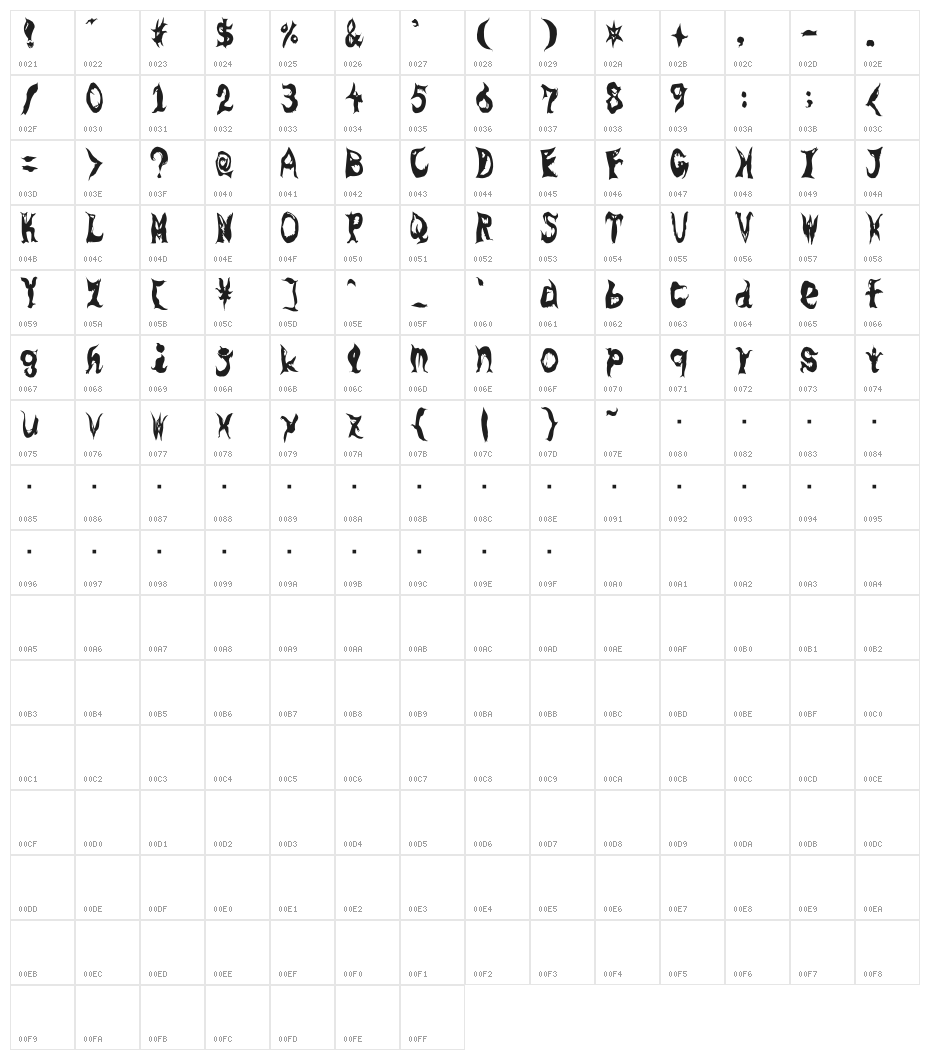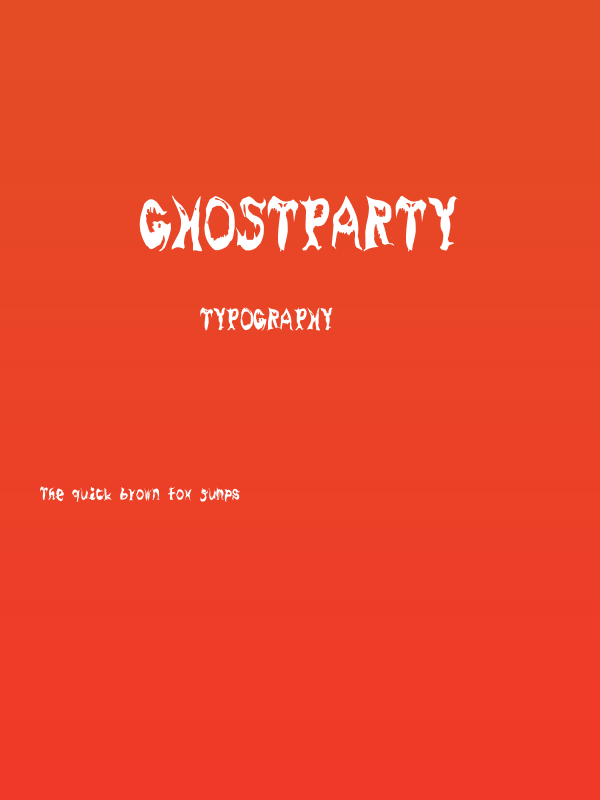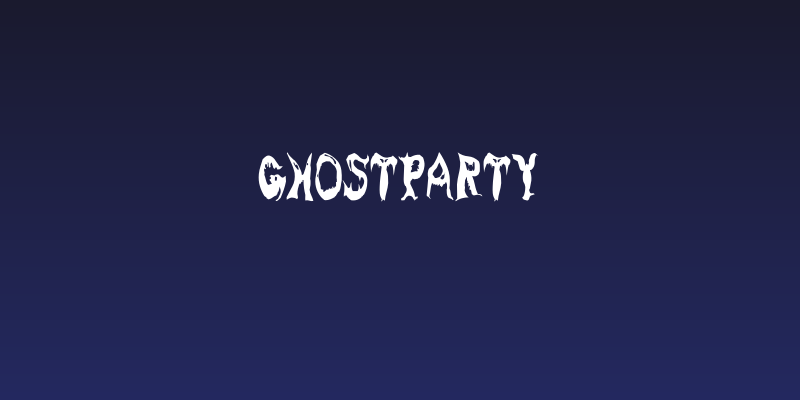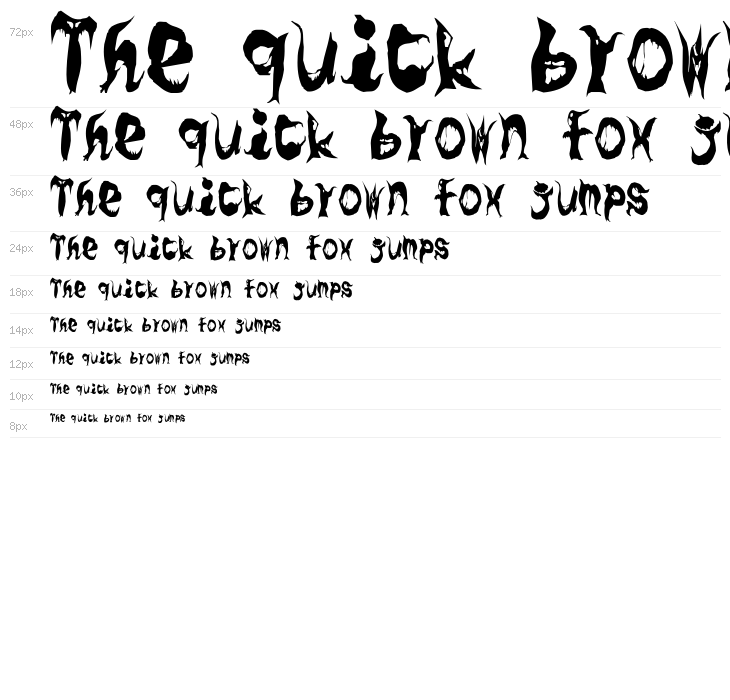
GhostParty Font
GhostParty Description
This font exudes a spooky, eerie vibe with its jagged, irregular edges and ghostly appearance. Each character seems to be torn or shredded, giving it a haunted, unsettling look. The uppercase and lowercase letters maintain a consistent style, with sharp, pointed ends and uneven strokes that mimic the appearance of tattered fabric or flickering shadows. Numbers and special characters follow the same theme, enhancing the overall chilling effect. The font's unique design makes it perfect for Halloween-themed projects or any design that requires a touch of the macabre.
| Proposed Projects | Ideal for Halloween invitations, horror movie posters, haunted house flyers, and spooky-themed merchandise. |